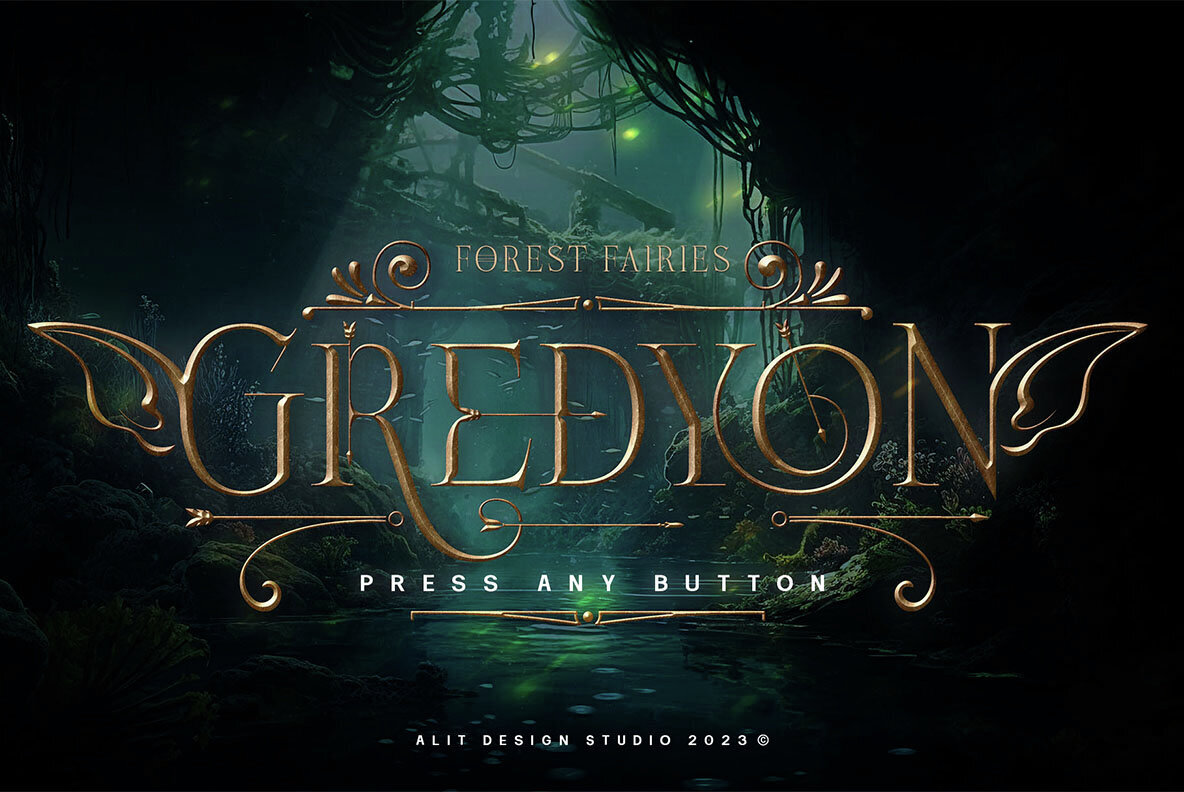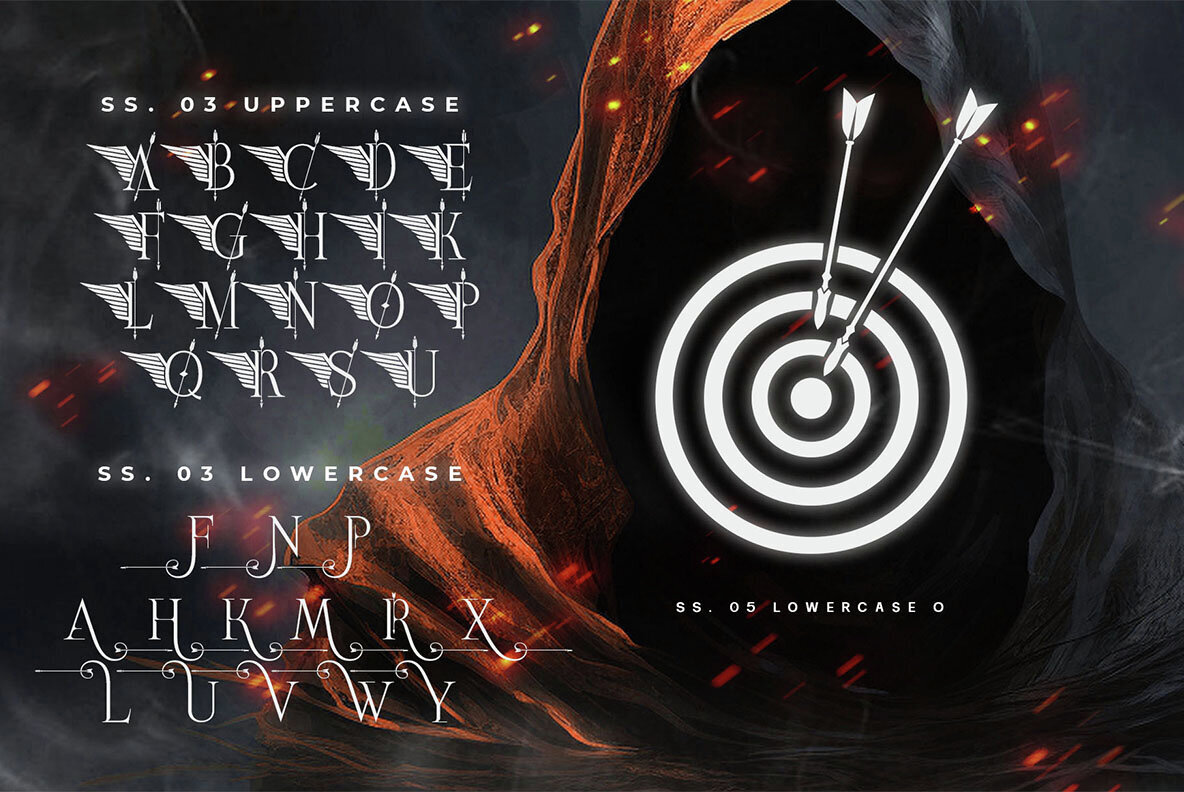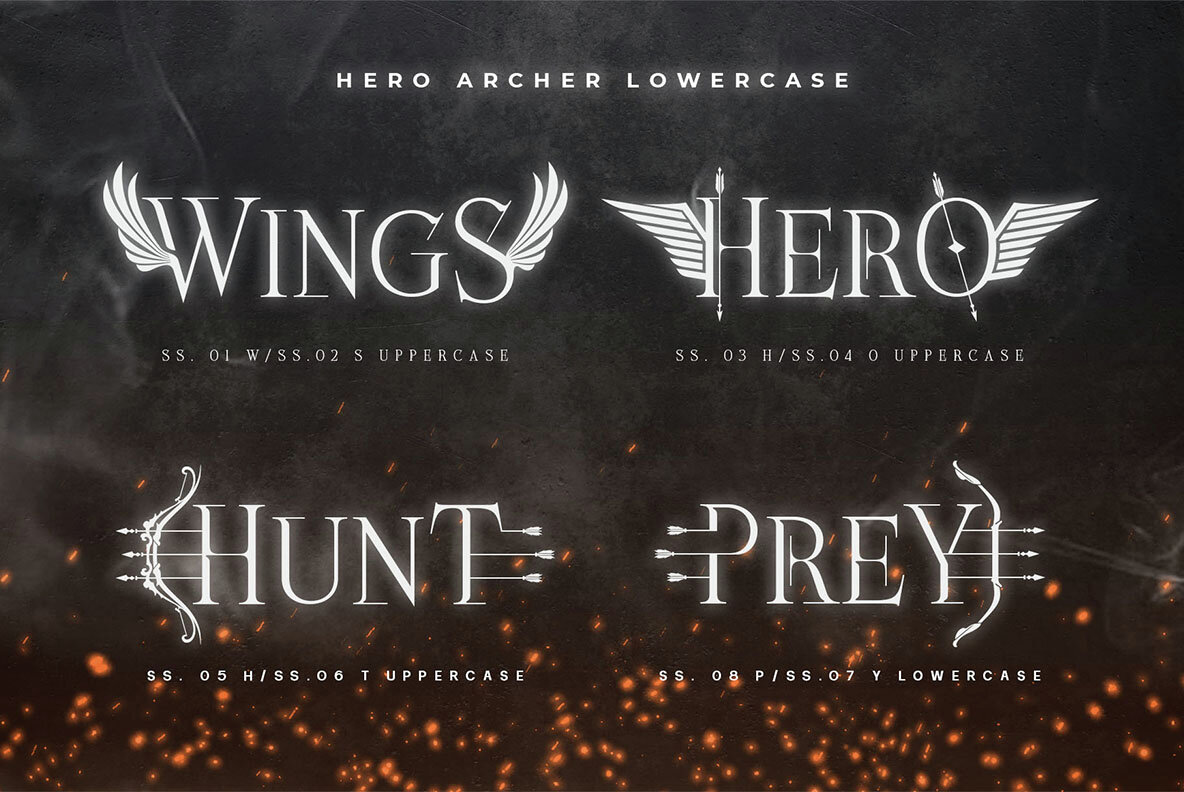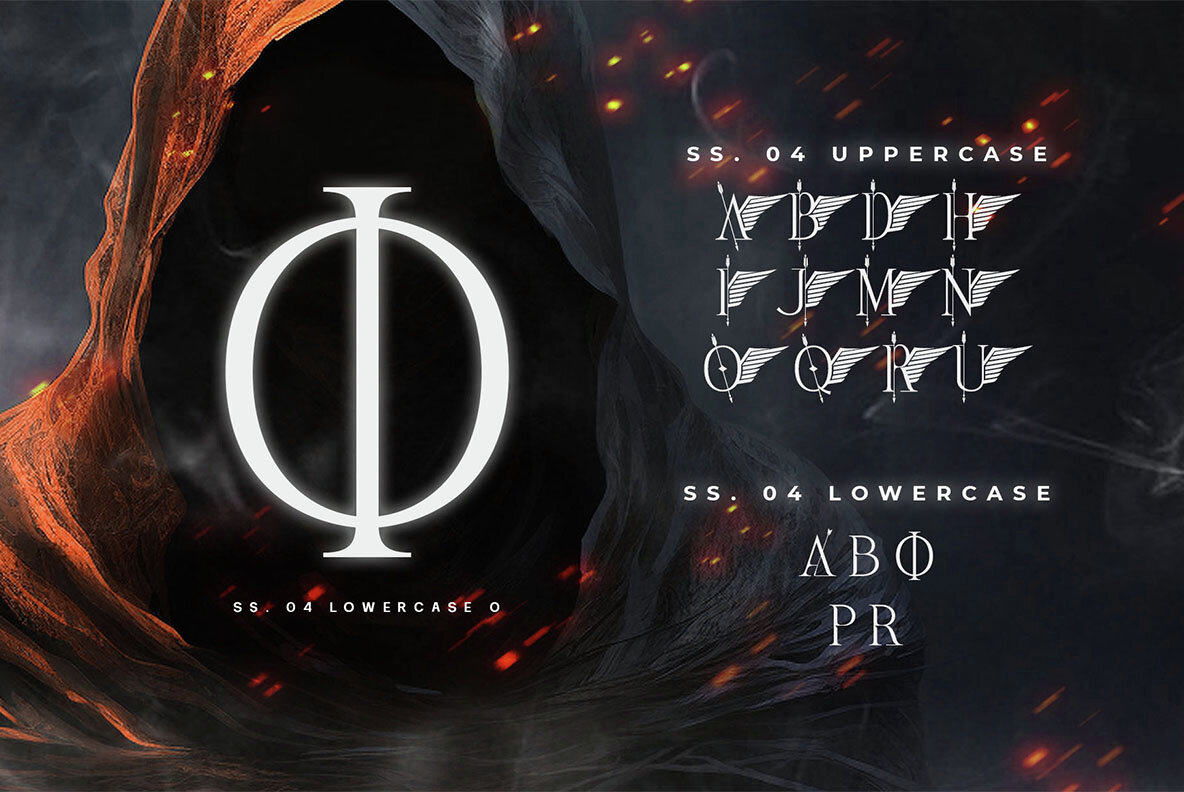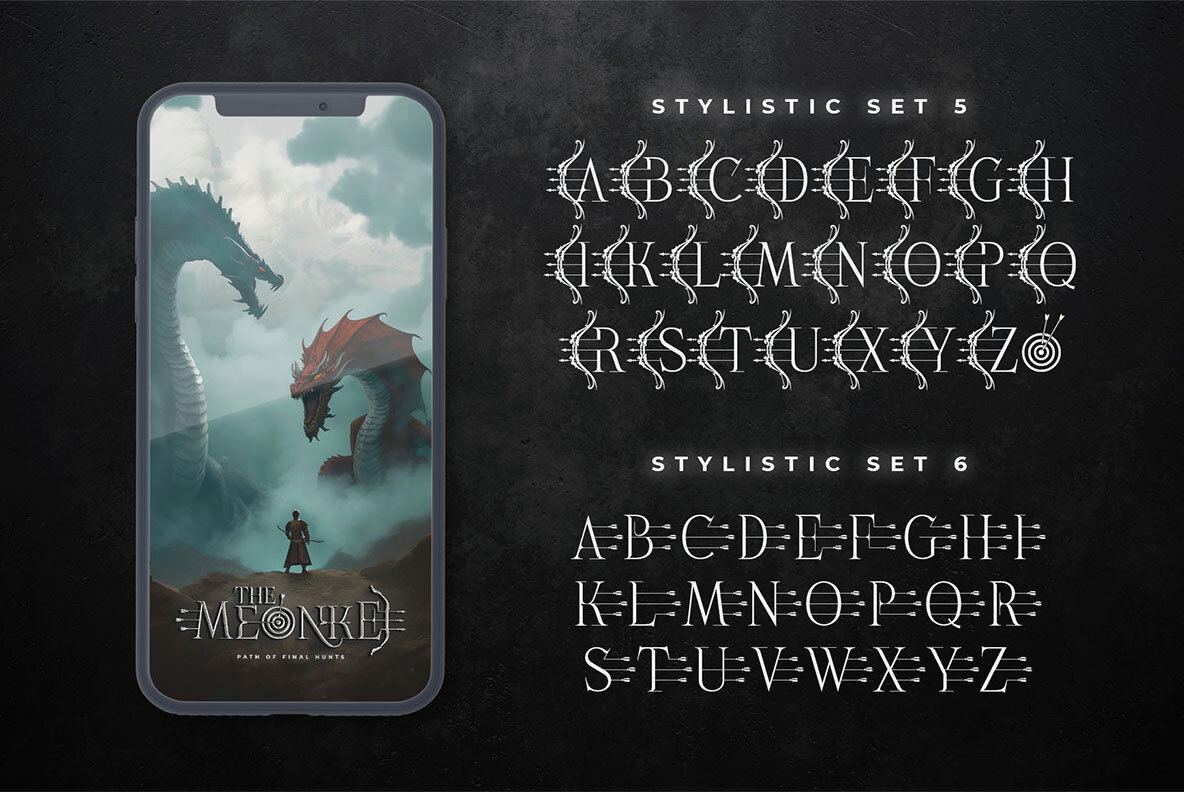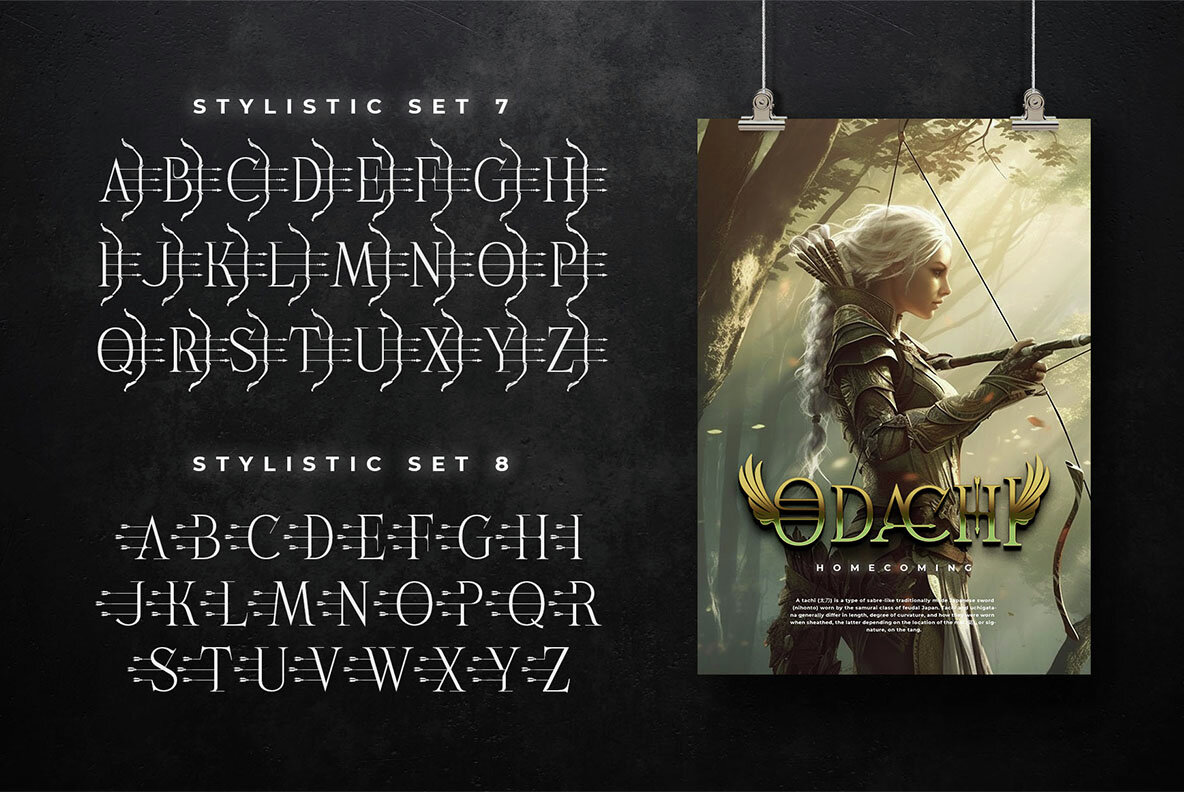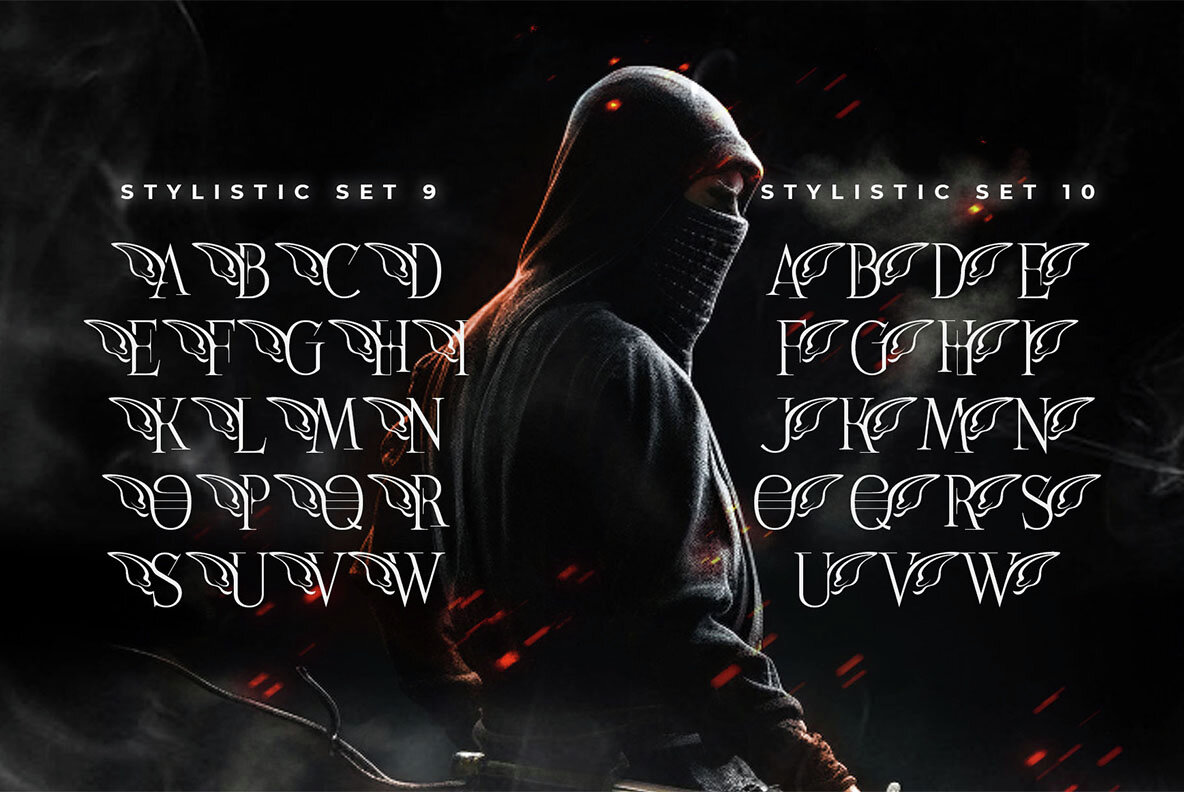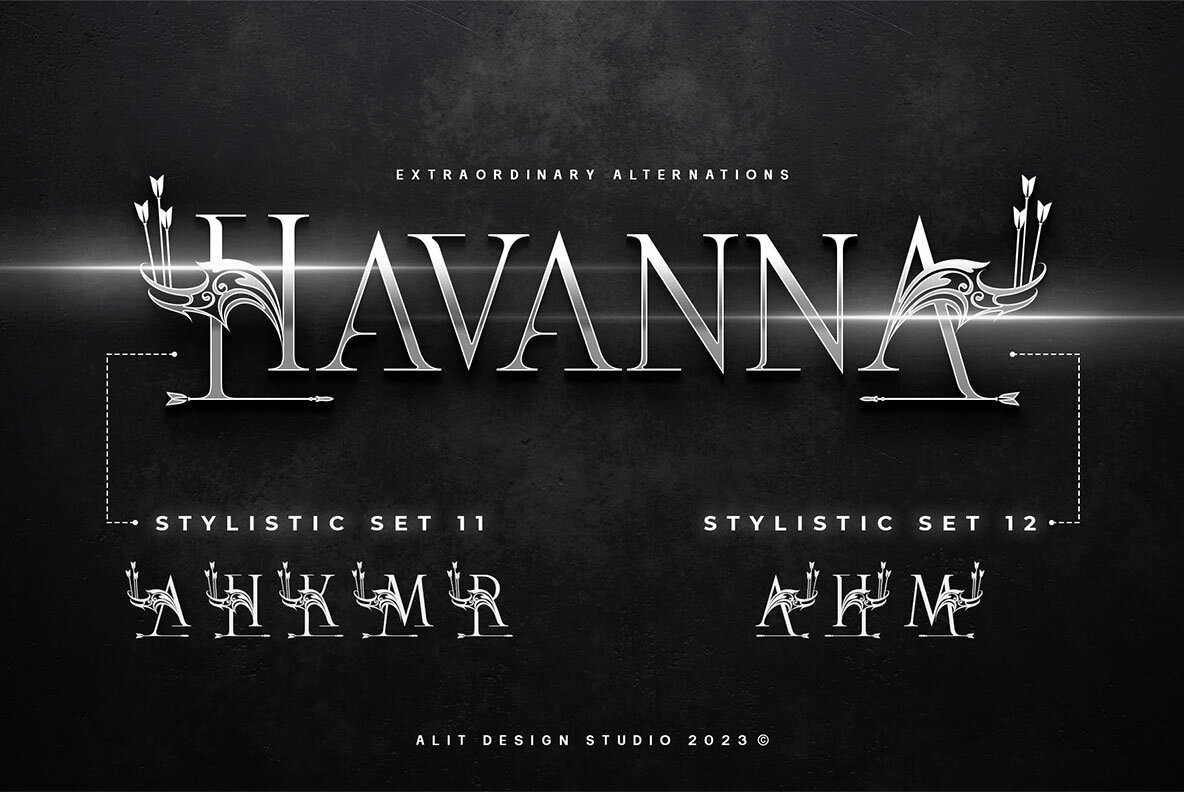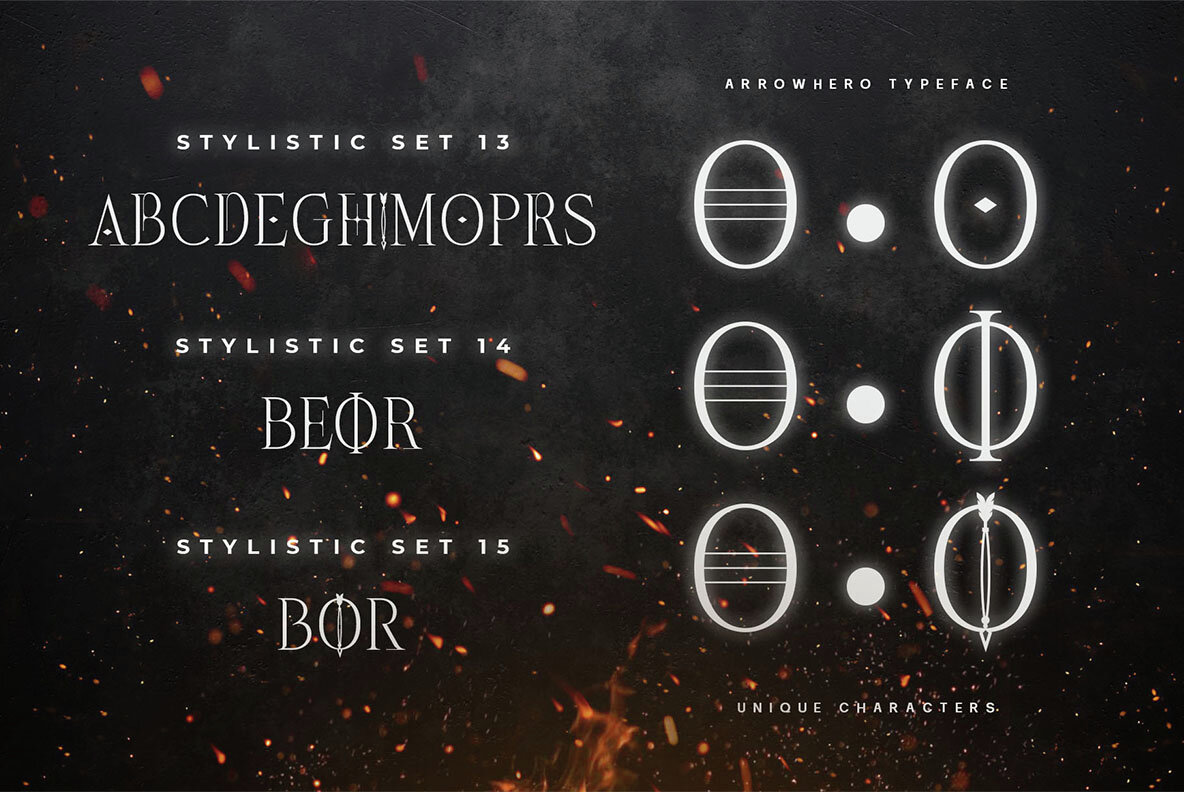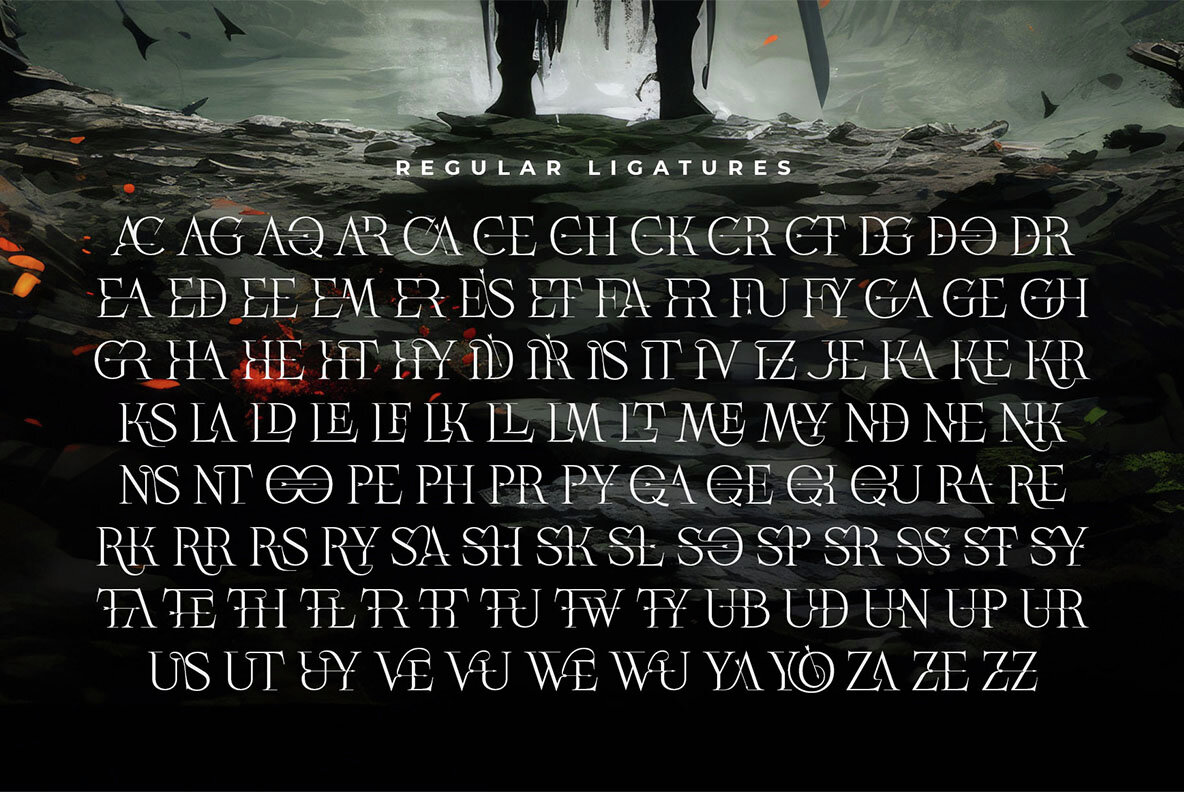
Arrow Hero Font
Arrow Hero Regular
Introducing "Arrow Hero" - A Typeface of Elegance and Adventure Unleash the power of elegance and adventure with our latest font creation, "Arrow Hero." This unique serif font seamlessly blends the mystique of archers, the allure of elves, and the boldness of superheroes. Crafted with precision, this font is more than just letters; it's a journey into a world where every curve and angle tells a story of heroic feats and enchanted realms. Key Features: Elevate your design projects to new heights with Arrow Hero, where the elegance of serif meets the magic of arrows, wings, and elf ears. Download this font today and embark on a design journey that transcends the ordinary, celebrating the hero within every letter.